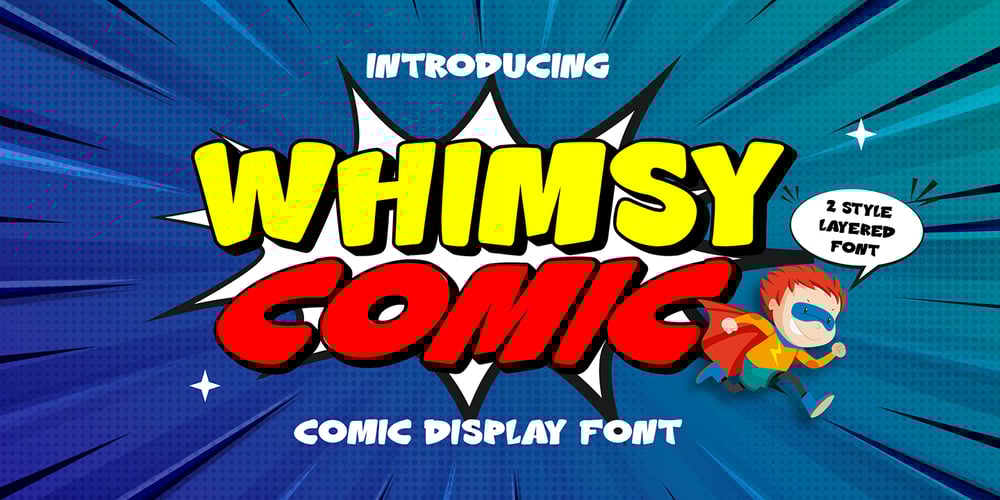
Whimsy Comic 3d layered
Whimsy Comic 3d layered font
Whimsy Comic 3d layered Font Family was designed by Sipanji and published by Sipanji21. Whimsy Comic 3d layered contains 4 styles and family package options. “Whimsy Comic” is a display font featuring charming and playful characters. This font exudes a sense of cheerfulness and lightheartedness. It offers four styles: regular solid, regular shadow, italic solid, and italic shadow. These variations allow you to experiment with different looks for your designs.